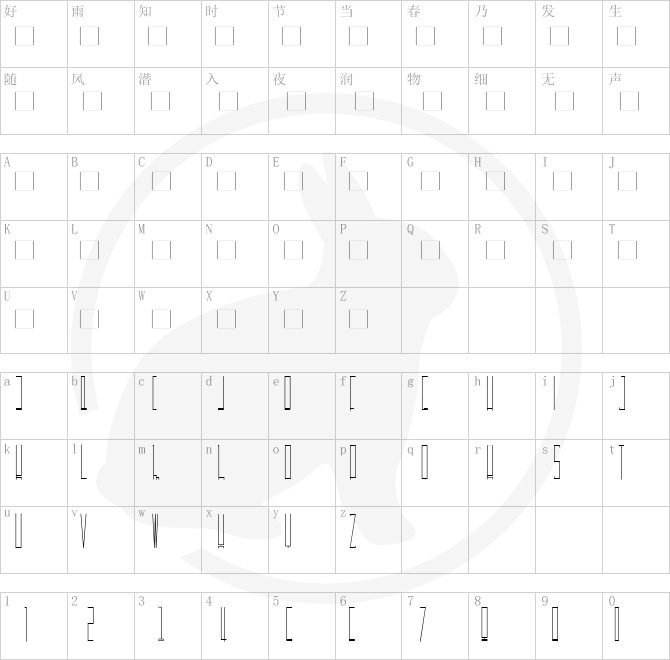
- Font Name:BABBIO-BASSO
BABBIO-BASSO.ttf is a very beautiful artistic font, BABBIO-BASSO.ttf is widely used in the design and printing of various books and pictures,BABBIO-BASSO.ttf has a strong visual impact,BABBIO-BASSO.ttf is a commonly used font in newspapers, magazines and books, and is used in posters, e-commerce Poster design, store design, logo design, font design and other fields.BABBIO-BASSO.